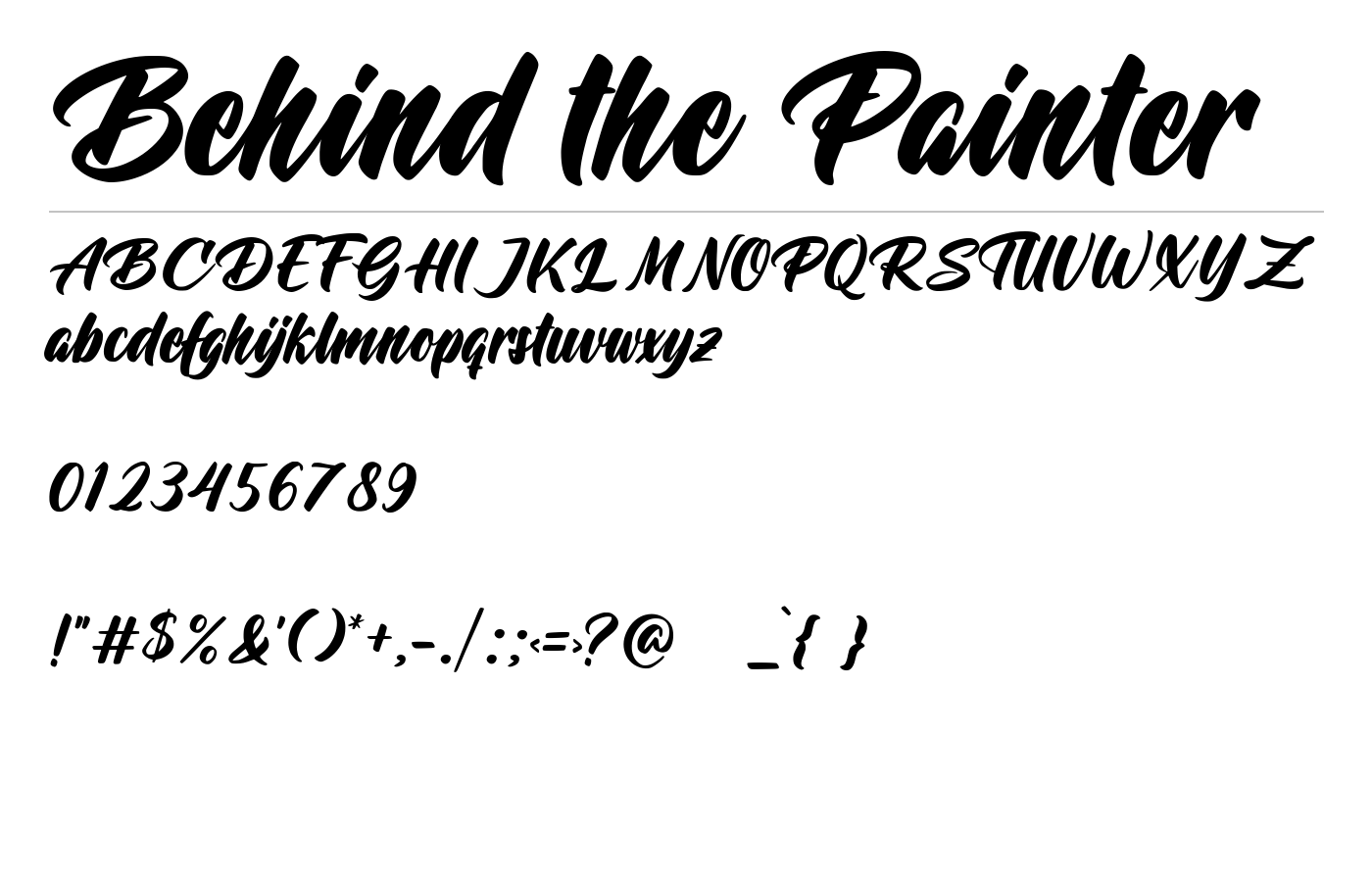
Behind the Painter is a bold, brush script font with a modern, hand-painted feel that combines elegance with a casual, artistic vibe. Its thick, fluid strokes and slightly condensed letterforms make it perfect for creating eye-catching headlines, logos, and branding that want to convey creativity and personality. This font works especially well in designs related to art, fashion, and lifestyle where a dynamic and approachable style is desired.
Behind the Painter Font
About Behind the Painter Font
| Font family | Behind the Painter Font |
| Designer | Octotype |